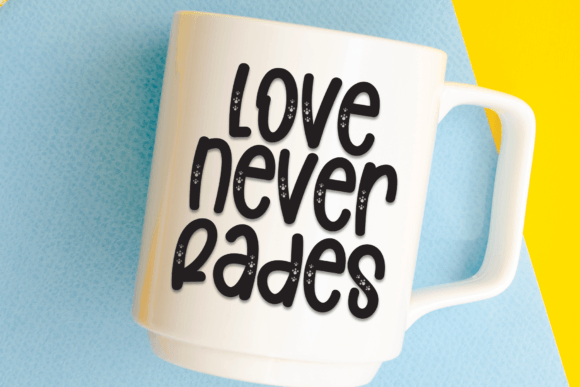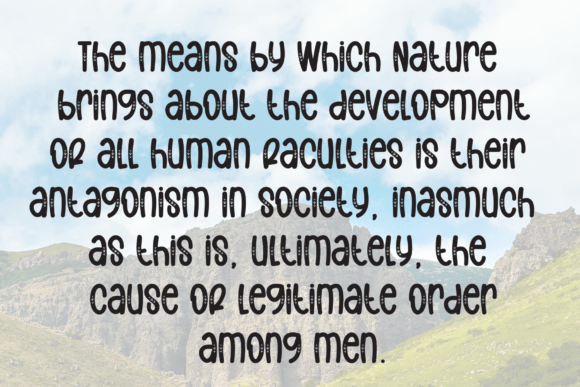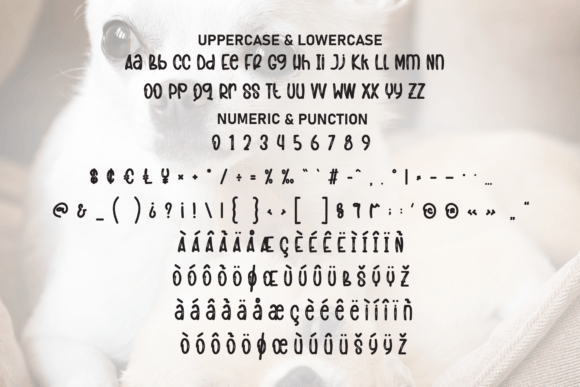
Unleashing the Cutest Design Companion: Baby Doggie Font
Who hasn’t found themselves scribbling down ideas in the dead of night, a blank notebook, and a pen? It’s those impromptu creative moments that often spark the most innovative ideas. As designers, we’ve all been there, trying to capture the essence of our vision with a few swift strokes. And what if we told you there’s a font that embodies that effortless charm?
Meet the Baby Doggie Font, a casual handwritten font that embodies the relaxed and friendly vibe we all strive for in our designs. This lovable font is perfect for personal projects, social media, and invitations, bringing a touch of warmth and authenticity to any design. Whether you’re a seasoned pro or just starting out, the Baby Doggie Font is an invaluable addition to your design arsenal.
- Unique Characteristics: The font features a playful, hand-drawn design with rounded edges and cute details, perfect for children’s content and family-friendly projects
Overall, I think the Baby Doggie Font is a cute and playful addition to any design project. Here are some things that work well:
- ✨ Unique and creative design: The font is inspired by a baby dog, which makes it perfect for projects related to pets, children, or fun, lighthearted themes.
- ✨ Versatile: The font comes in various styles, from casual to formal, which makes it suitable for a wide range of applications, from greeting cards to advertisements.
- ✨ Easy to read: Despite its playful design, the font is still easy to read, making it a great choice for text-heavy projects.
- ⚠️ Limited font sizes: While the font is available in various styles, it’s not available in as many font sizes as I would like. This might limit its use in certain applications.
- ⚠️ Not ideal for formal documents: While the font is versatile, it’s not suitable for formal documents or presentations, as it may come across as too playful or childish.
Overall, I think the Baby Doggie Font is a great choice for designers who want to add a touch of whimsy to their projects. While it may not be suitable for every application, it’s a fun and creative addition to any design library.
The “Baby Doggie Font” is ideal for designs that require a playful and cute touch, such as:
– Children’s party invitations
– Baby shower decorations
– Pet-themed merchandise
– Branding materials for pet-related businesses
Remember to use the font in moderation and balance it with other design elements to avoid overwhelming the viewer.